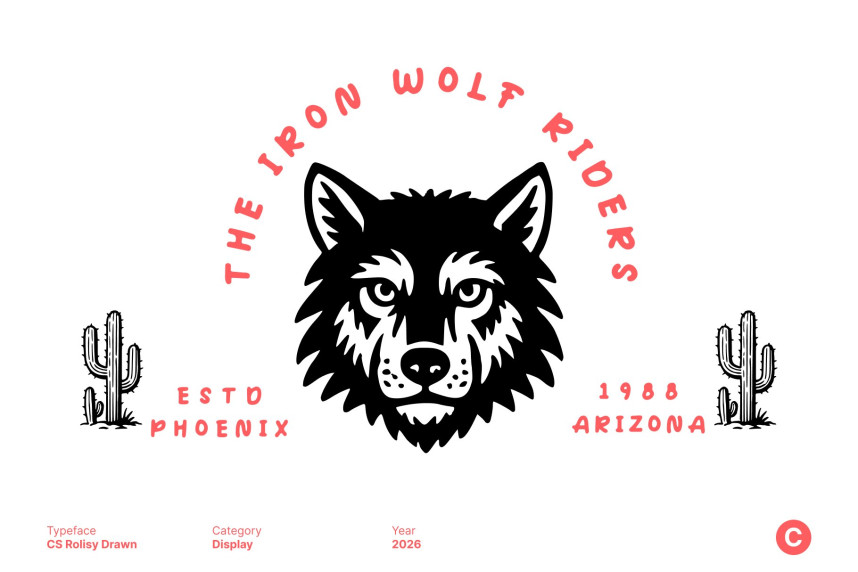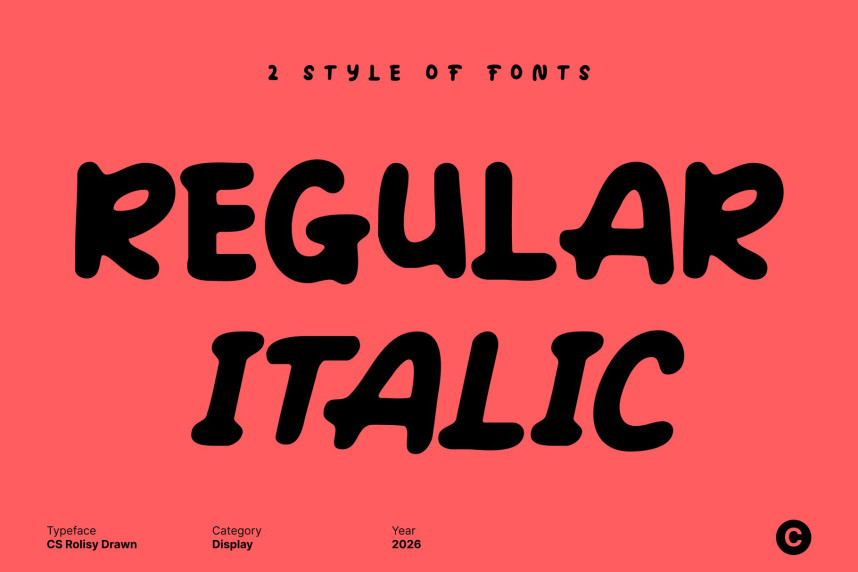
CS Rolisy Drawn Font
CS Rolisy Drawn Font – Modern Display Font with a Cheerful Handwritten Touch Playful Modern Display Font. This is a modern display font infused with a cheerful handwritten personality and a subtle drawn texture. Designed to bring joy and expressiveness to typography, it blends clean, balanced letterforms with organic imperfections, creating a look that feels both stylish and genuinely human.